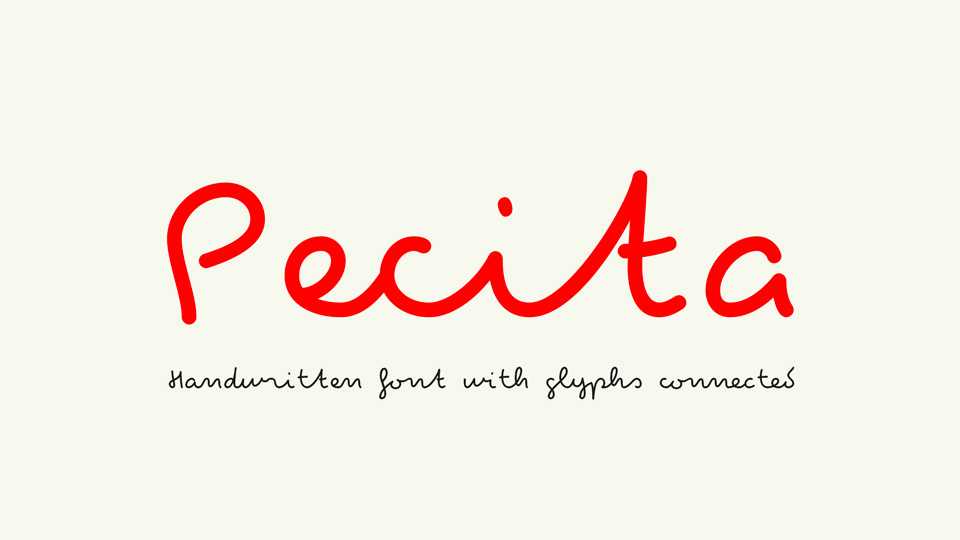
Download Pecita font, a casual handwritten script with connected glyphs. Pecita has a lot of contextual alternates and ligatures to create a natural look.
Designer: Philippe Cochy